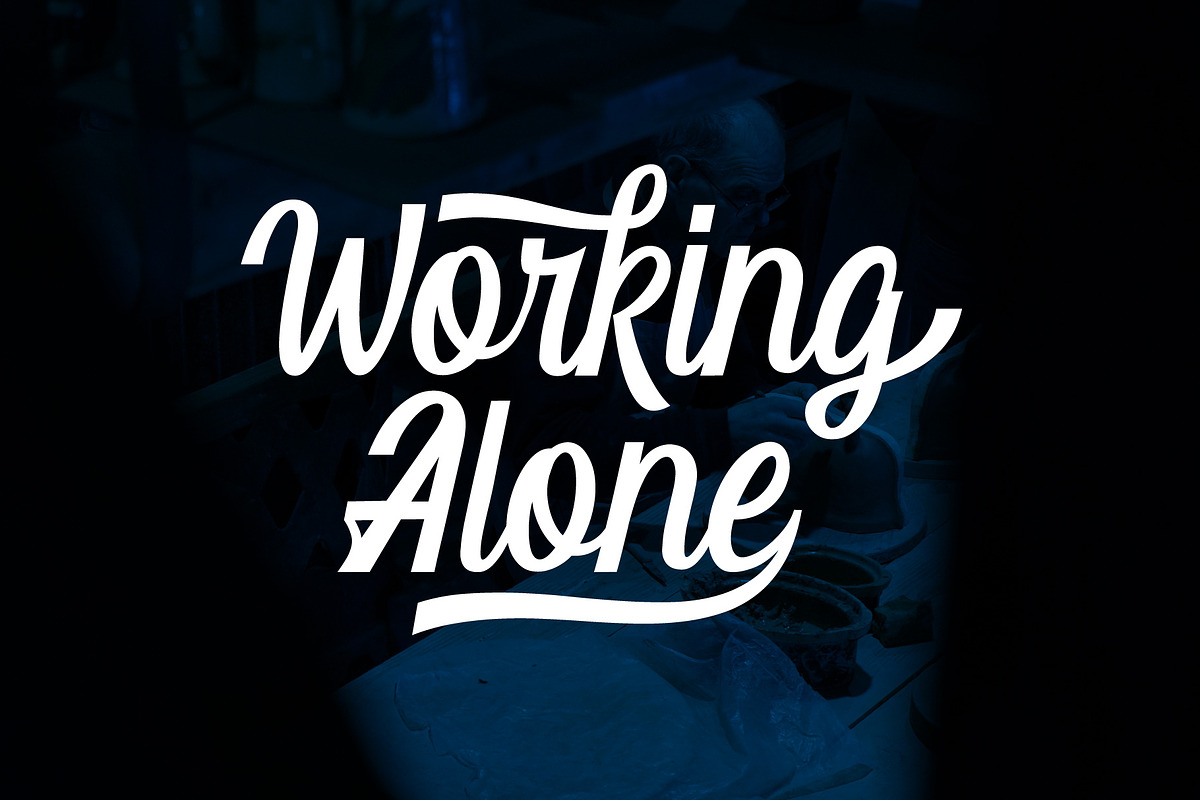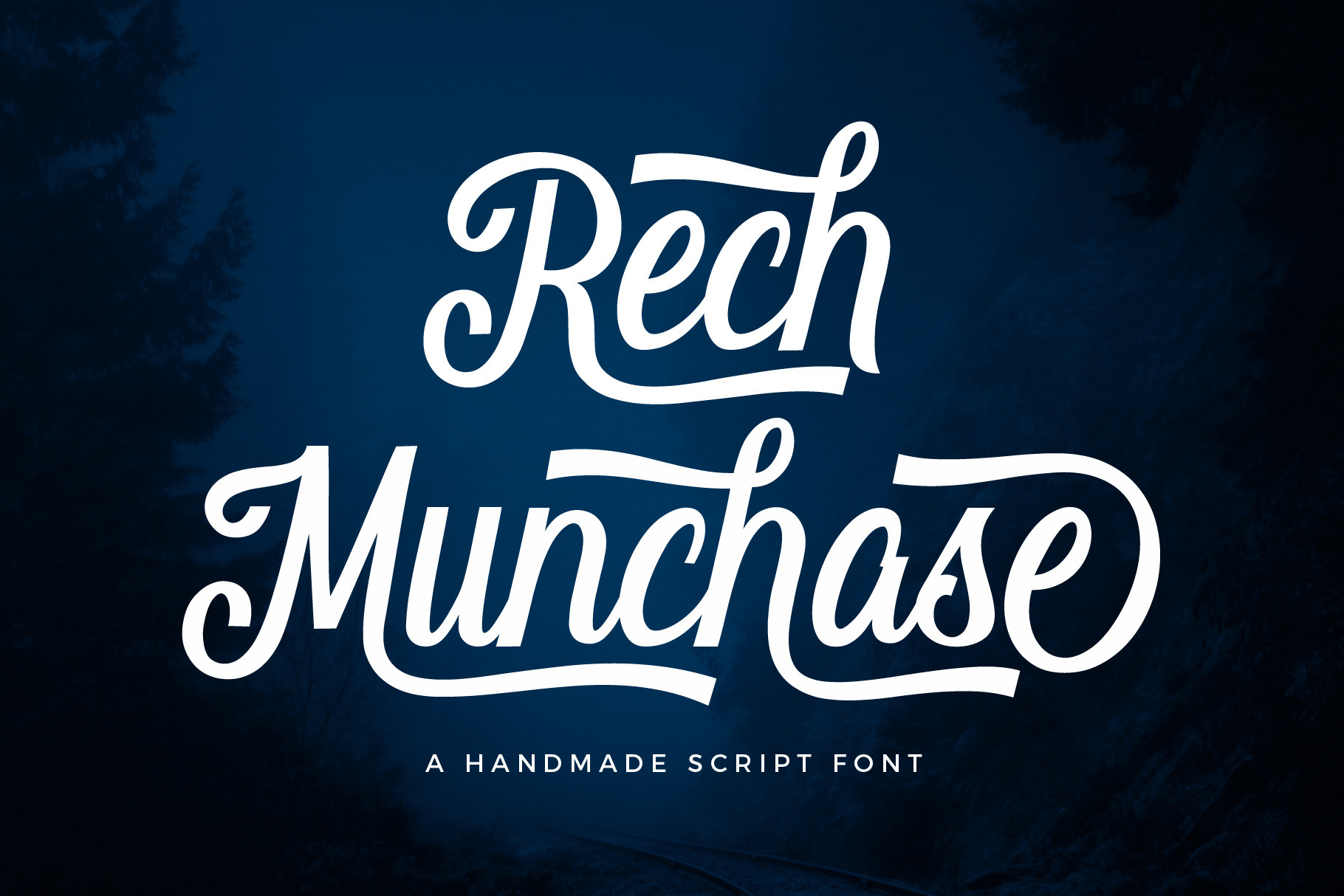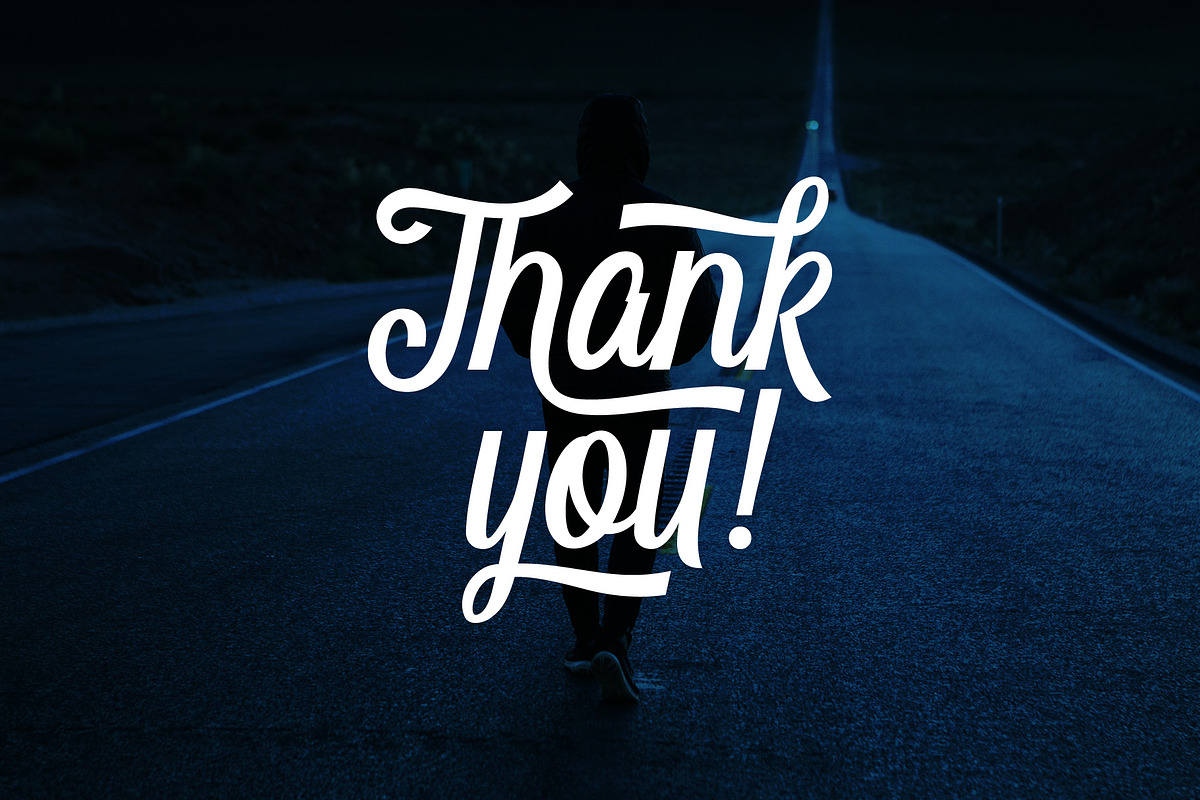
Rech Munchase Font
Rech Munchase is a handmade script font. Rech Munchase is perfect for logotypes, posters, apparel designs, labels, website headers and much more!
What the Features:
- Uppercase, lowercase, numeral, punctuation & symbol
- Stylistic alternates
- Stylistic Set01 - Stylistic Set14